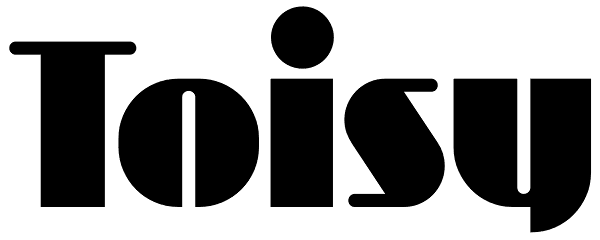
Toisy
When the right late seventies / early eighties message is needed, Toisy comes to the rescue. Founded on a mix of references from letterforms of the time, this new original nods to a style that defined an era. A sexy theme font that conveys a clear...